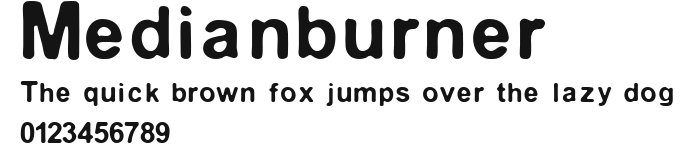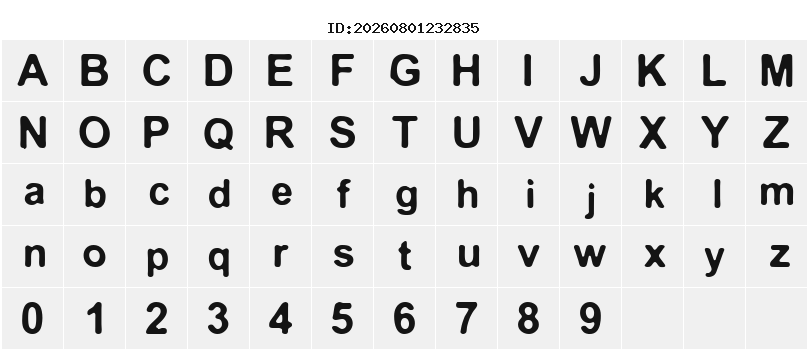
• Font Name: Medianburner
• Full Font Name: Medianburner
About Medianburner.ttf
Medianburner.ttf is a modern, elegant sans-serif font designed for ultimate readability and visual harmony. Perfect for branding, headlines, web design, and print materials.